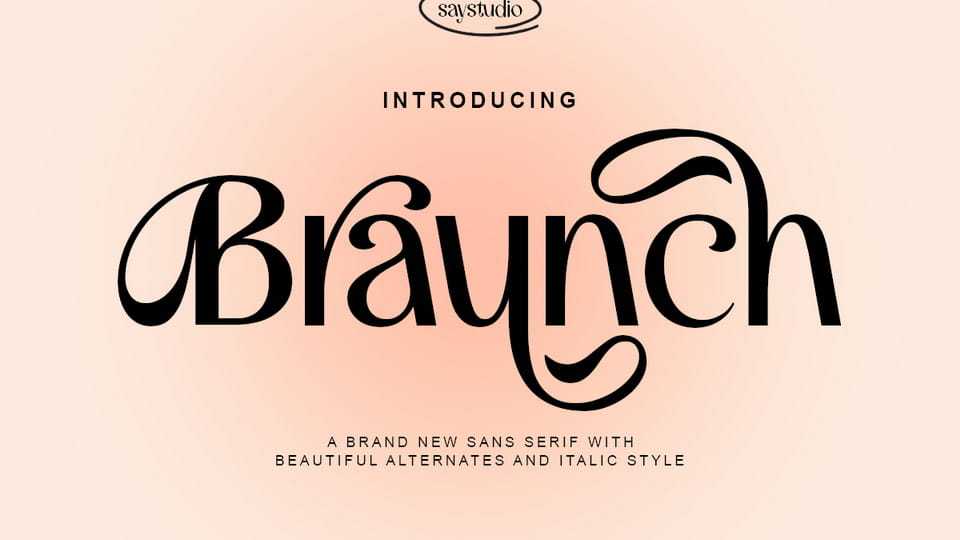
Download Braunch font, sans serif typeface with luxury and elegant style with a unique modern typeface with beautiful character alternates. Braunch is ideal for posters, magazines, and print designs, brings a touch of sophistication and cool luxury vibes to every project.